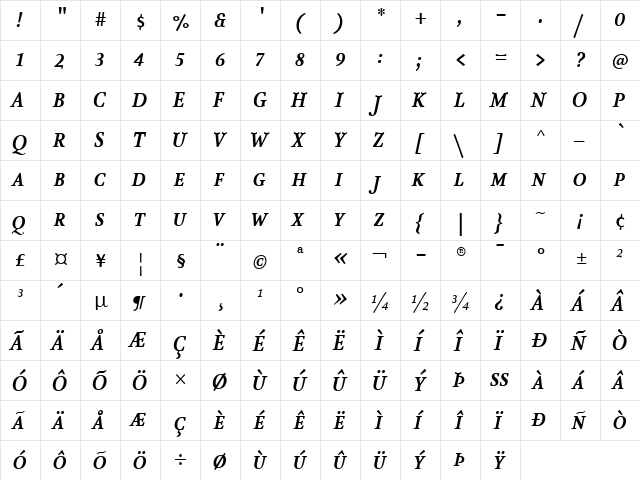
AtmaSerifLF-BoldItalicQC Regular Font Preview
Design Context for AtmaSerifLF-BoldItalicQC Typeface
AtmaSerifLF-BoldItalicQC carries the refined structure of traditional serif typography, with bracketed terminals and considered proportions that communicate credibility and craft. Its italic angle brings a sense of urgency and motion to the letterforms. Its bold stroke weight gives it real presence on the page.
Pro Tip: Use AtmaSerifLF-BoldItalicQC for editorial body copy and considered headline work. Pair with a neutral sans for UI elements or captions to create a classic hierarchy.